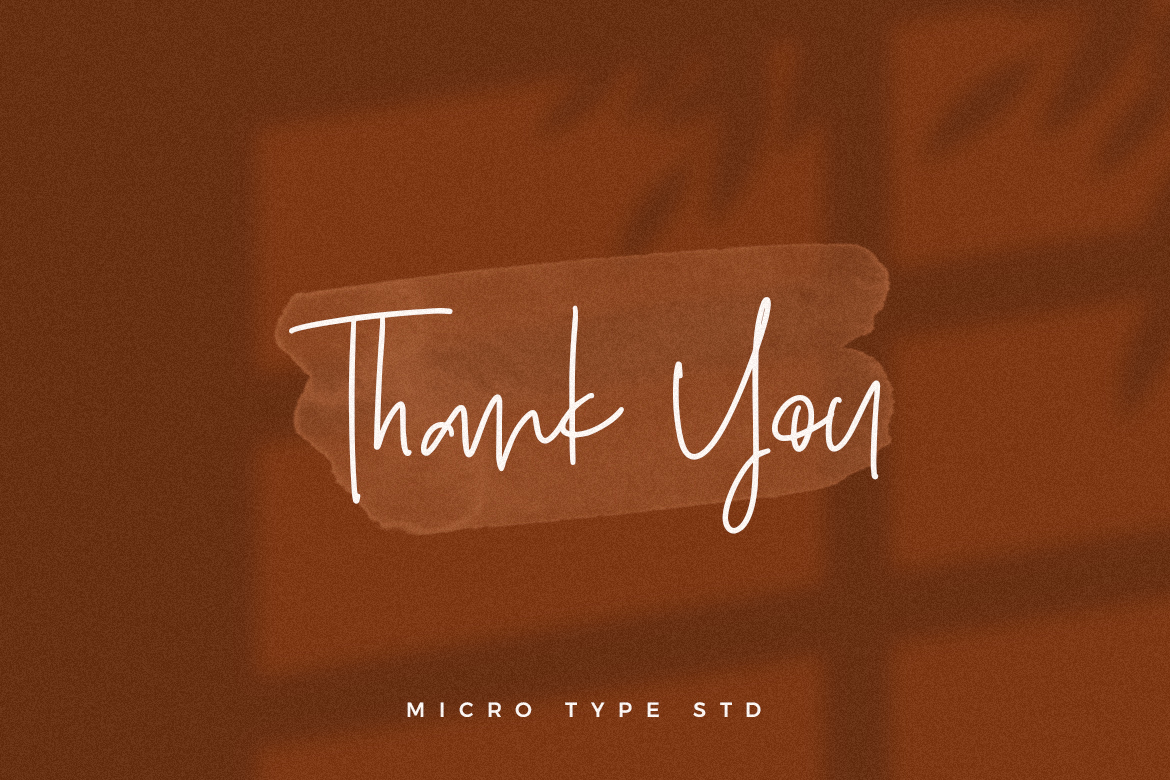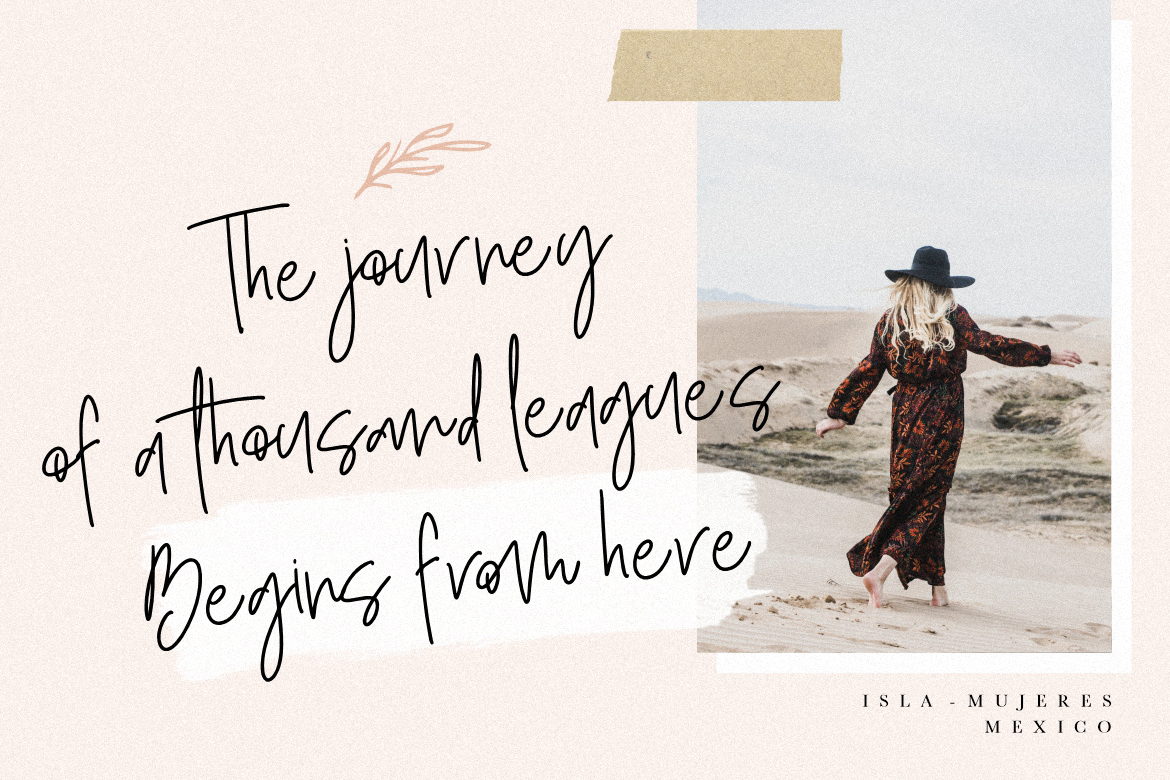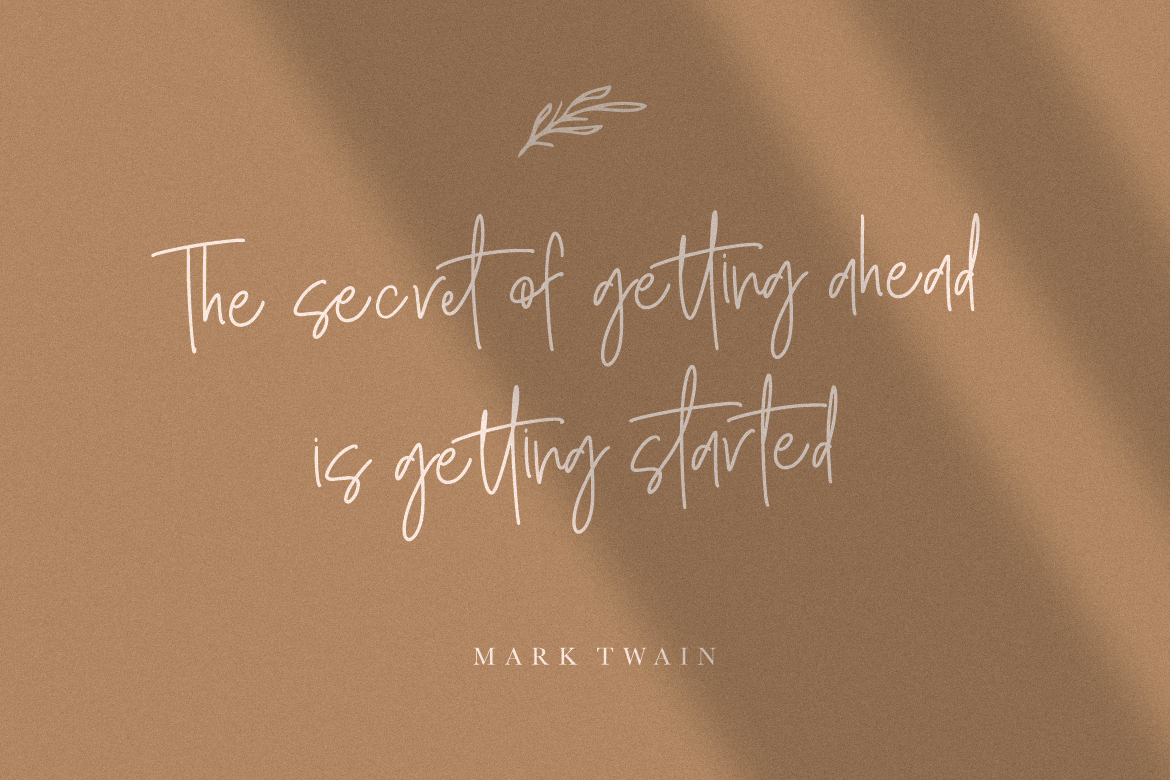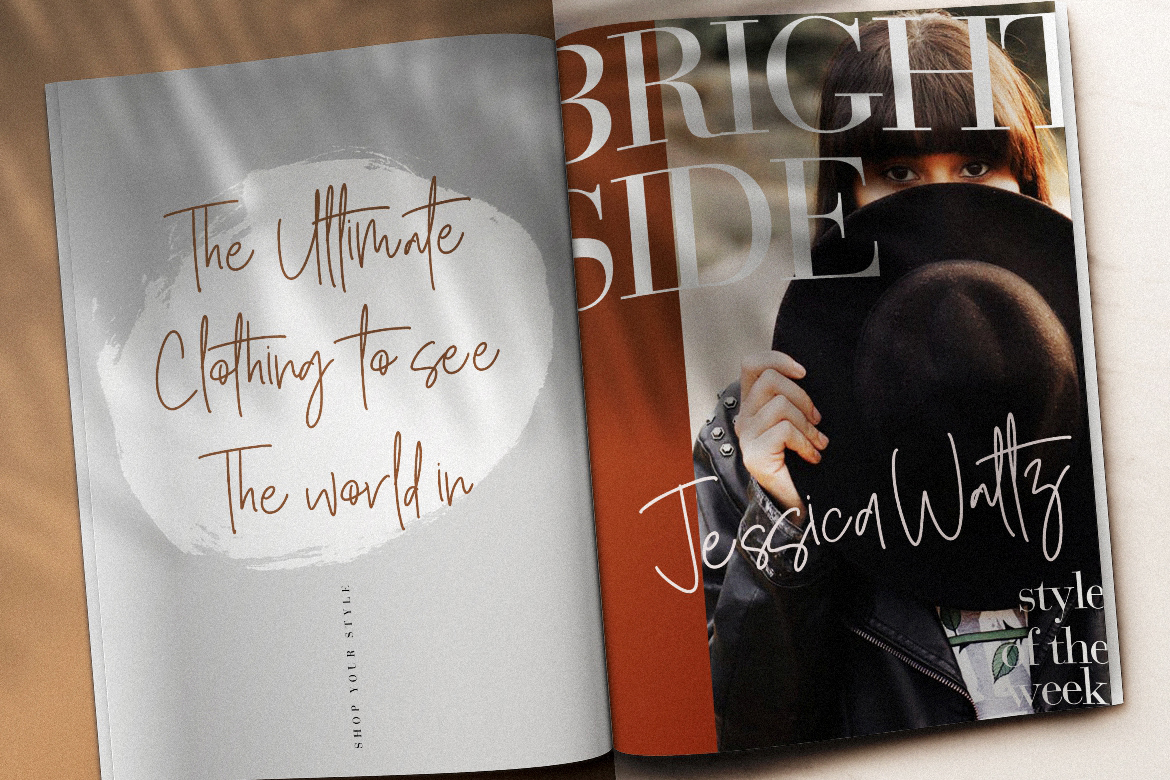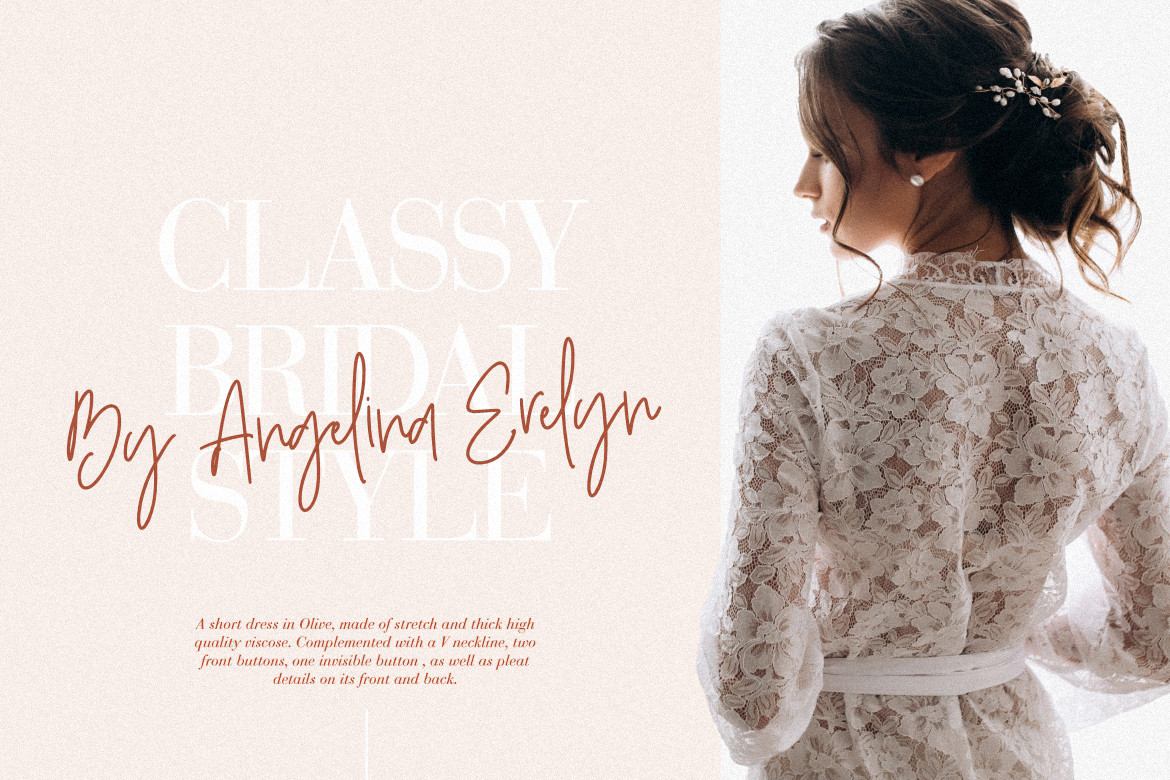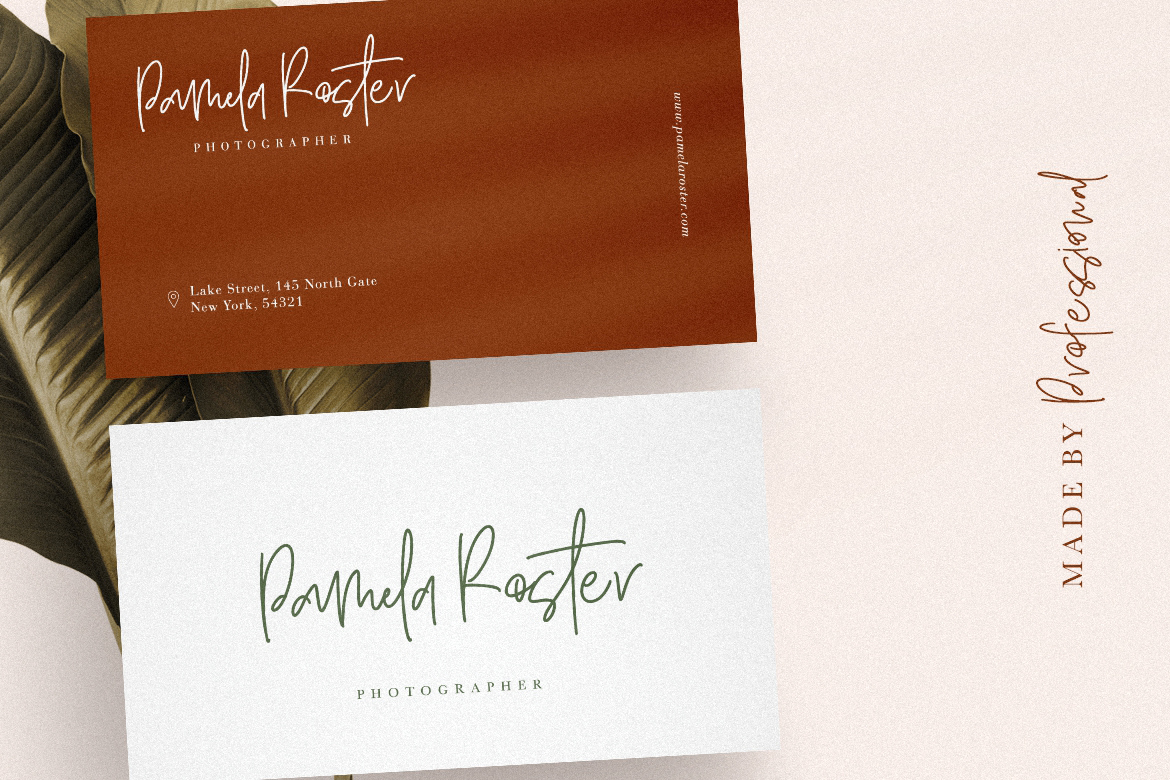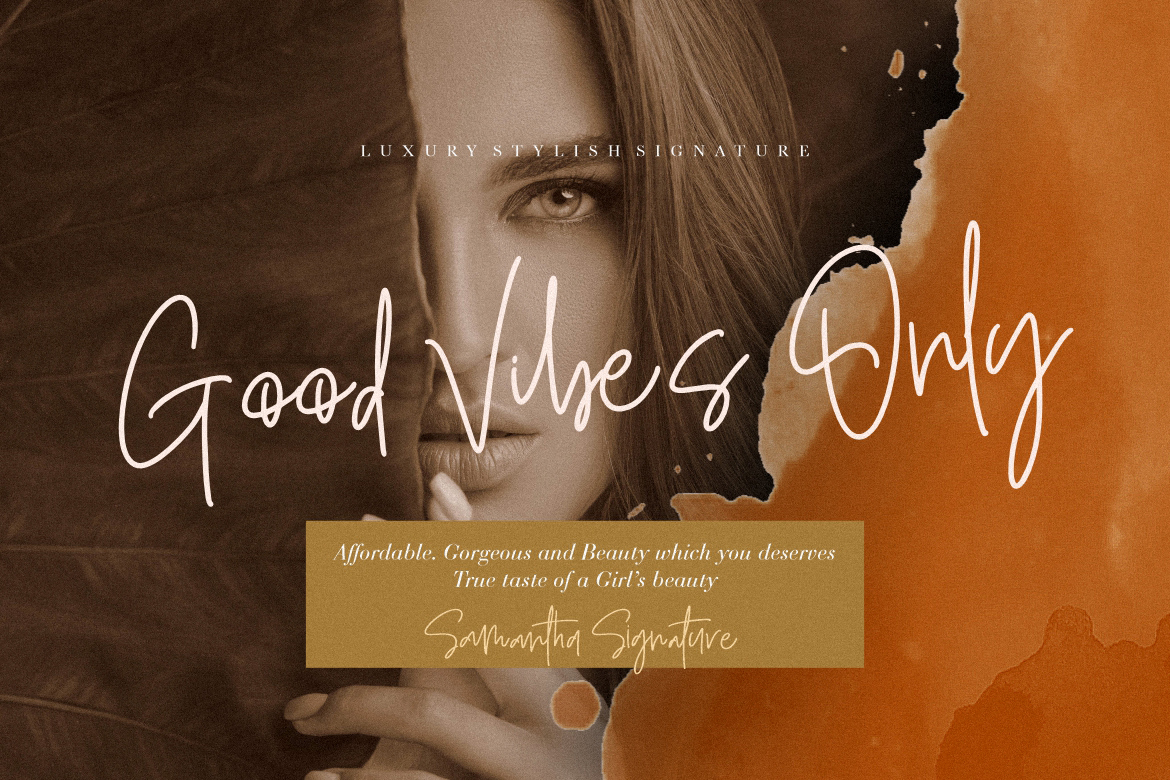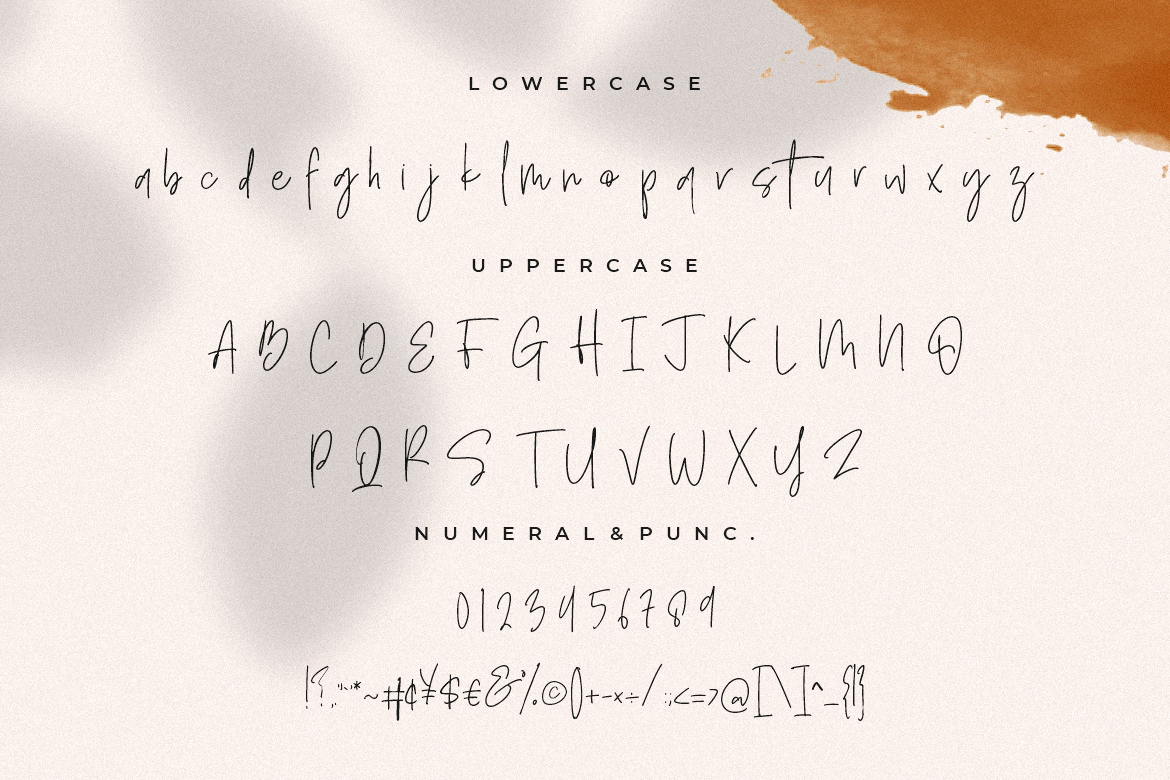
Introducing Samantha Luxury Signature – A fashionable signature-style script make looks elegant, classy and touch of luxury and stylish. The font is perfect for for movie title, logo, blogging, brand identity, book title, social media, branding, wedding invites, cards or simply use it in your next design project and suitable to use for many occasion.
• Ton of glyphs
• Ligature & Alternate
• Fonts include multilingual support for; Afrikaans, Albanian, Czech, Danish, Dutch, English, Estonian, Finnish, French, German, Hungarian, Italian, Latvian, Lithuanian, Norwegian, Polish, Portuguese, Slovak, Slovenian, Spanish, Swedish.
Samantha Signature